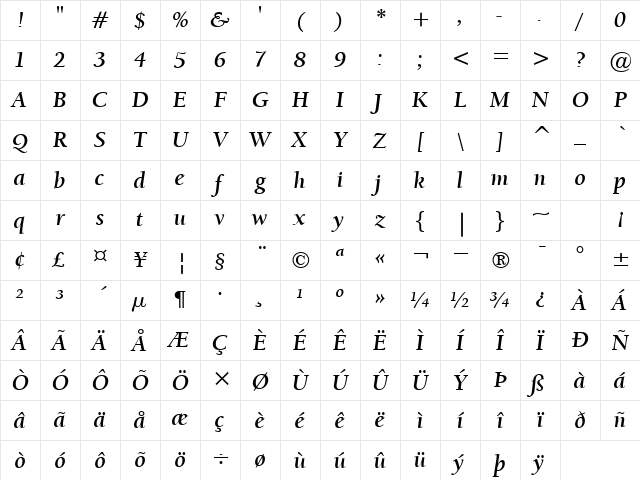
ITCBerkeleyOldstyle BoldItalic
ITCBerkeleyOldstyle Family
Complete ITCBerkeleyOldstyle BoldItalic glyph index. Displaying only characters natively supported by ITCBerkeleyOldstyle BoldItalic font.
Design Context for ITCBerkeleyOldstyle
ITCBerkeleyOldstyle carries the refined structure of traditional serif typography, with bracketed terminals and considered proportions that communicate credibility and craft. The slanted form adds forward momentum and visual energy. Its bold stroke weight gives it real presence on the page.
Pro Tip: Use ITCBerkeleyOldstyle for editorial body copy and considered headline work. Pair with a neutral sans for UI elements or captions to create a classic hierarchy.